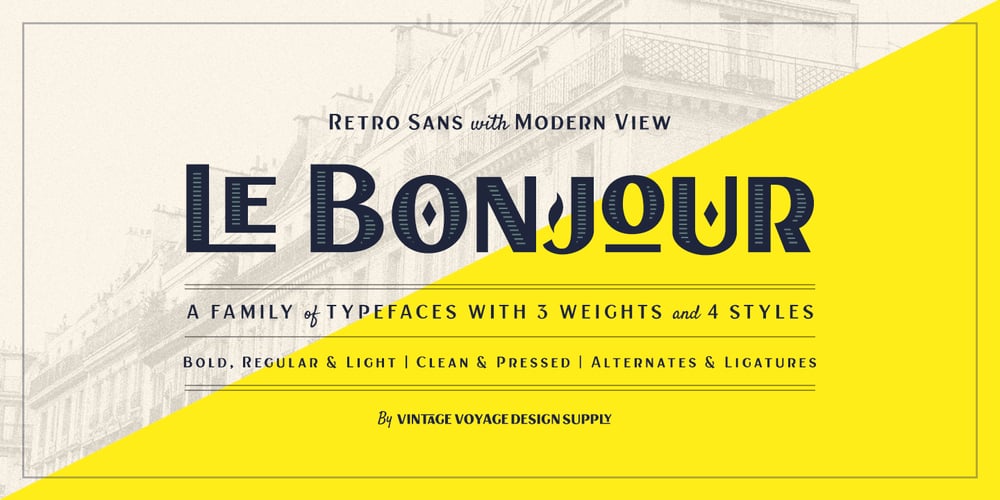
Le Bonjour
Le Bonjour font
Le Bonjour Font Family was designed by Pavel Korzhenko and published by Vintage Voyage Design. Le Bonjour contains 10 styles and family package options. Classic retro sans with some modern looks. Contrast vertical and horizontal lines in Bold style and elegant and airy Light style. This font has no lowercase letters, only the small caps which makes it very suitable for Headers, Logotypes, sub-headers, etc. This family has a French mid-century spirit with the alternate underlined O, inherent in that time, ligatures for L-pairs and T-pairs letters and some decorative alternates for A, C, H, J, O, Q, and U letters. The Le Bonjour has three widths: Bold, Regular and Light. Four styles for Bold and Regular: Clear, Offset Decor Line, Pressed and Stroke. And two styles for Light: Clear and Stroke. (the light style is too narrow for Offset decor and Press styles)